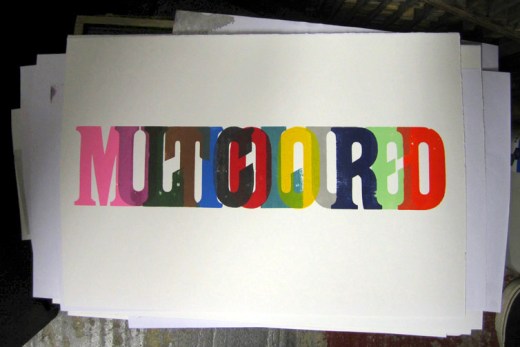
#LDF13 ‘Multicoloured’ by JMG Studio
“We had great fun! After much deliberation, we decided that with 13 characters in the word ‘Multicoloured’ and the fact there is 13 different colour tube lines covering the whole of London, it was to much of a good an opportunity to miss. We then overprinted each of the letters to make 12 extra colours to make it truly multicoloured.”